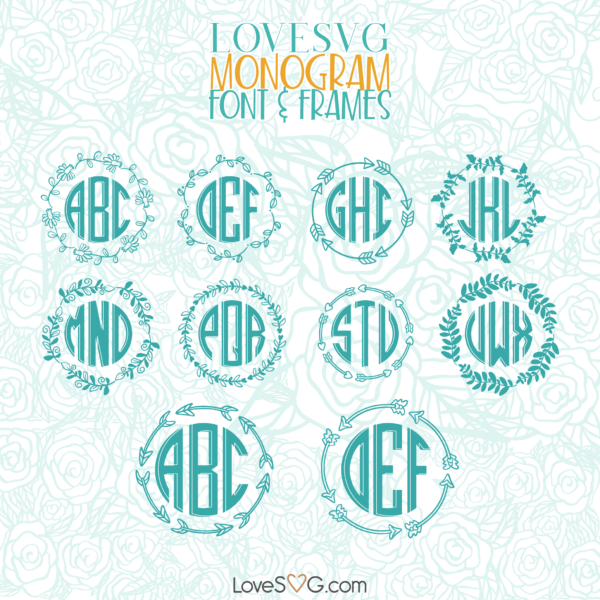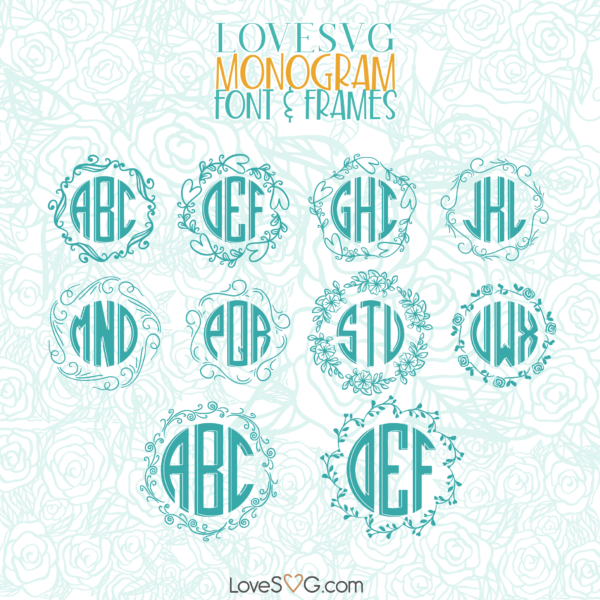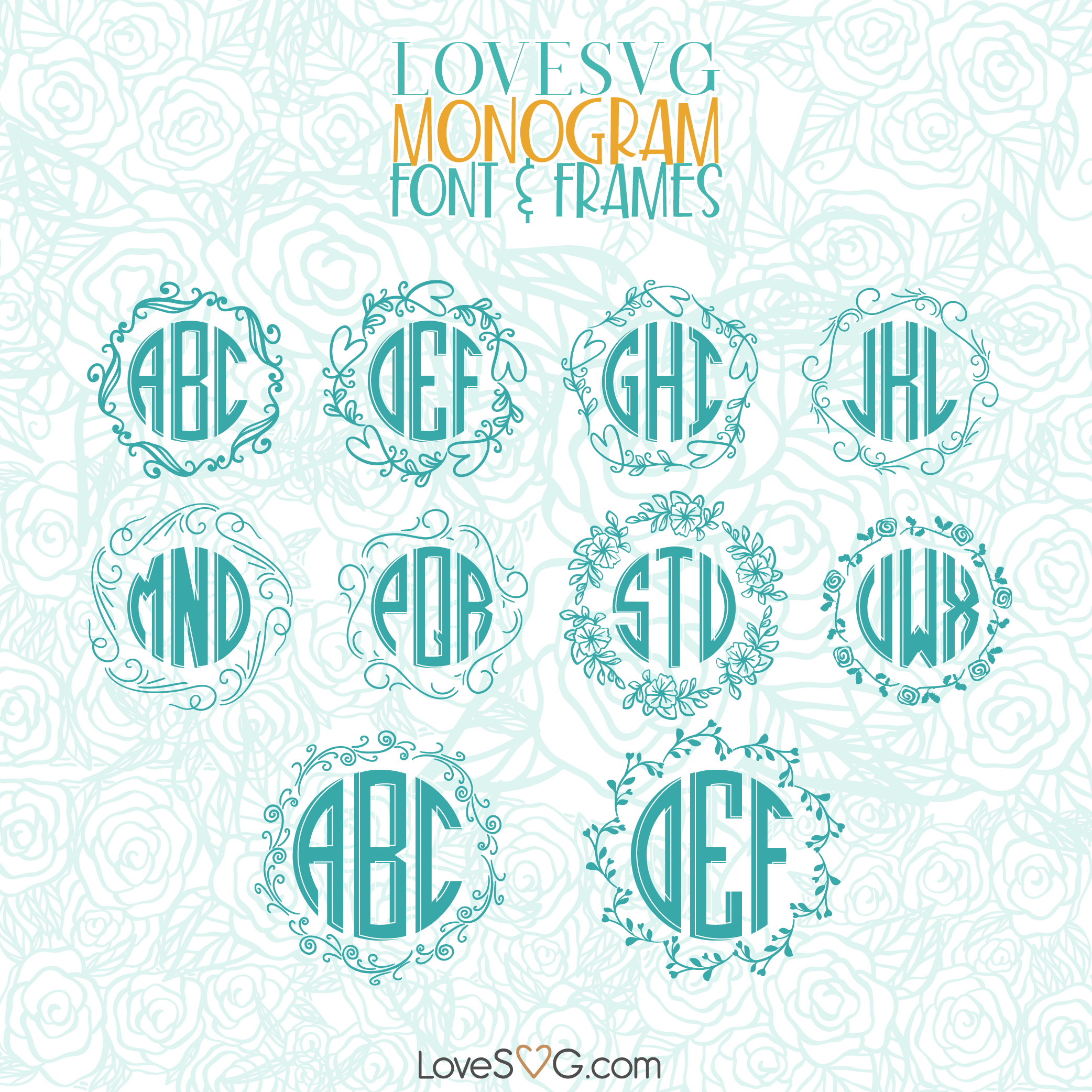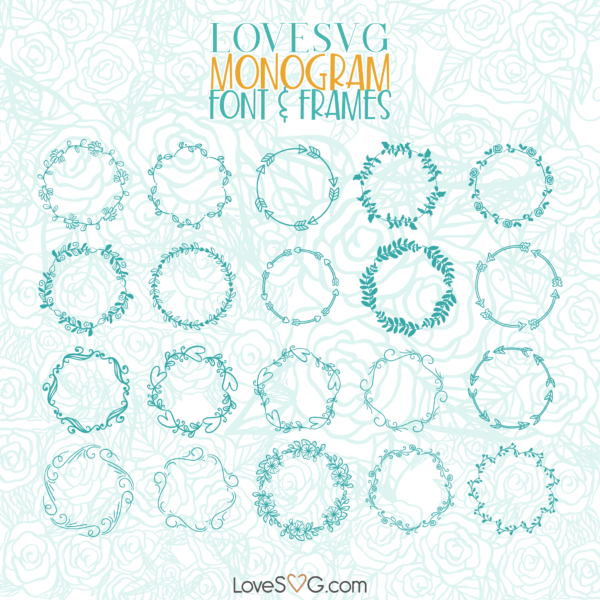
Monogram Font + Bonus Monograms
LoveSVG Monogram Font + Bonus Monograms, made exclusively by LoveSVG.com, is a cut friendly font compatible with Cricut, Silhouette, SCAL and Scan N Cut. Its thickness makes it an ideal font for making cut files.
- Uppercase, numbers & punctuation